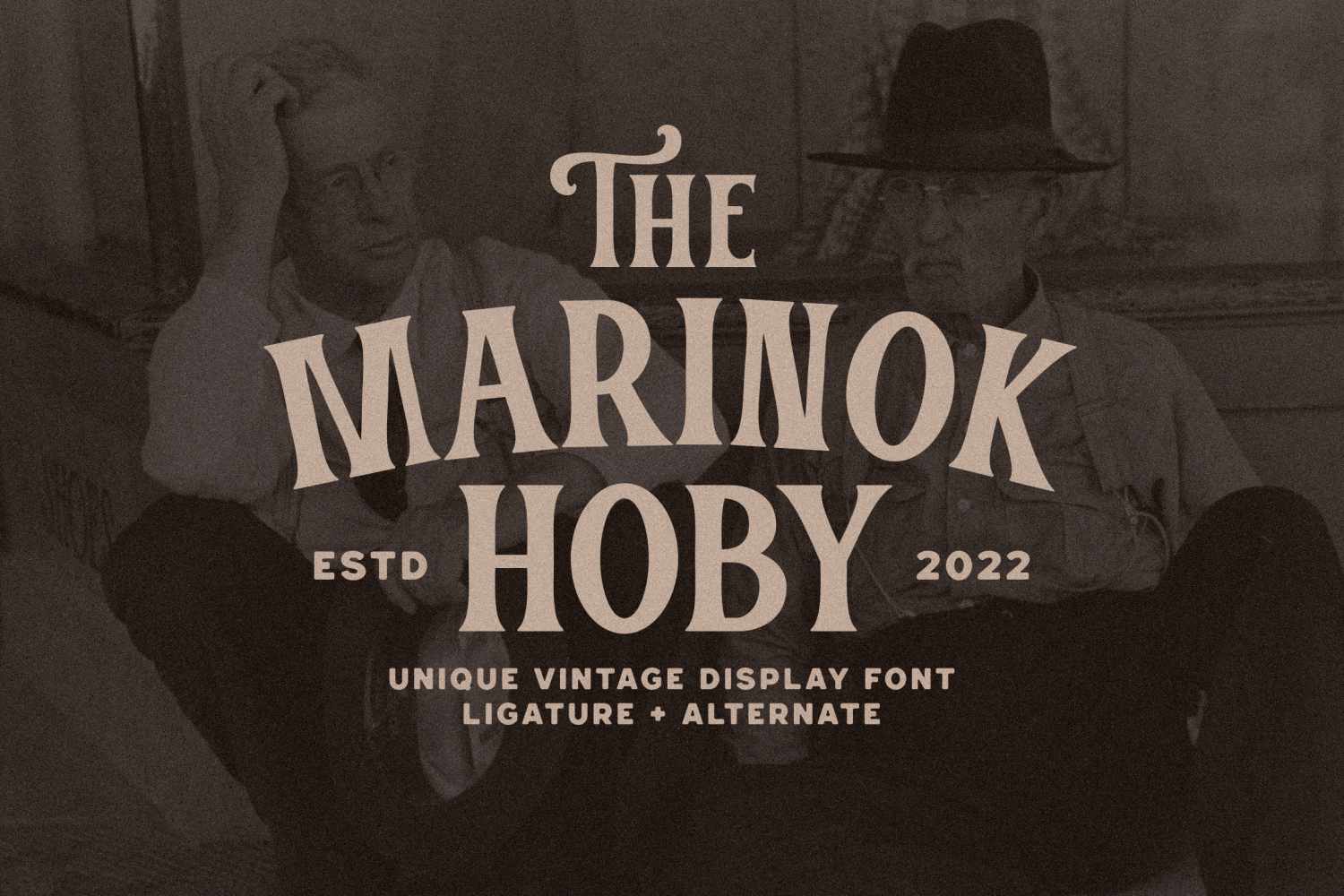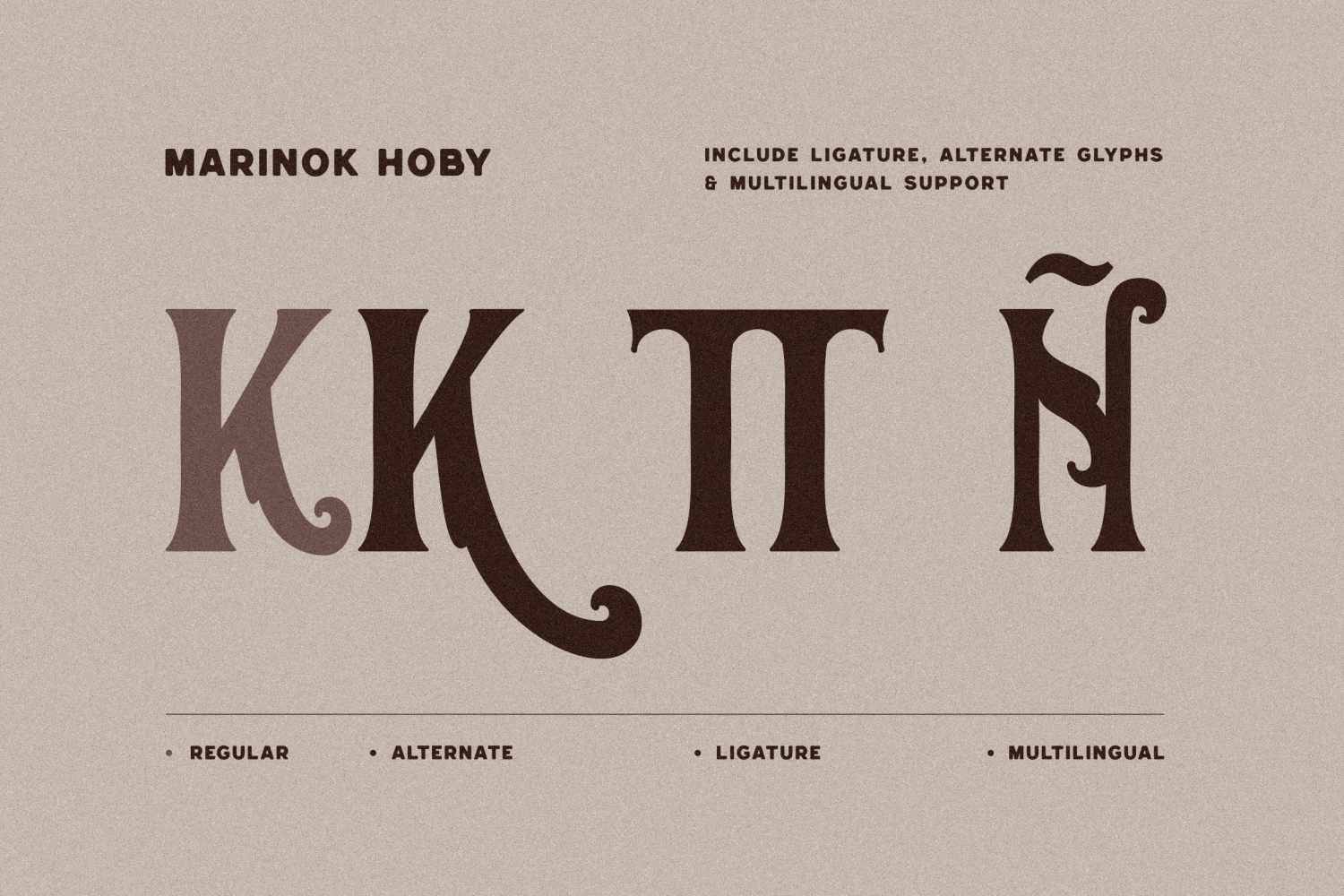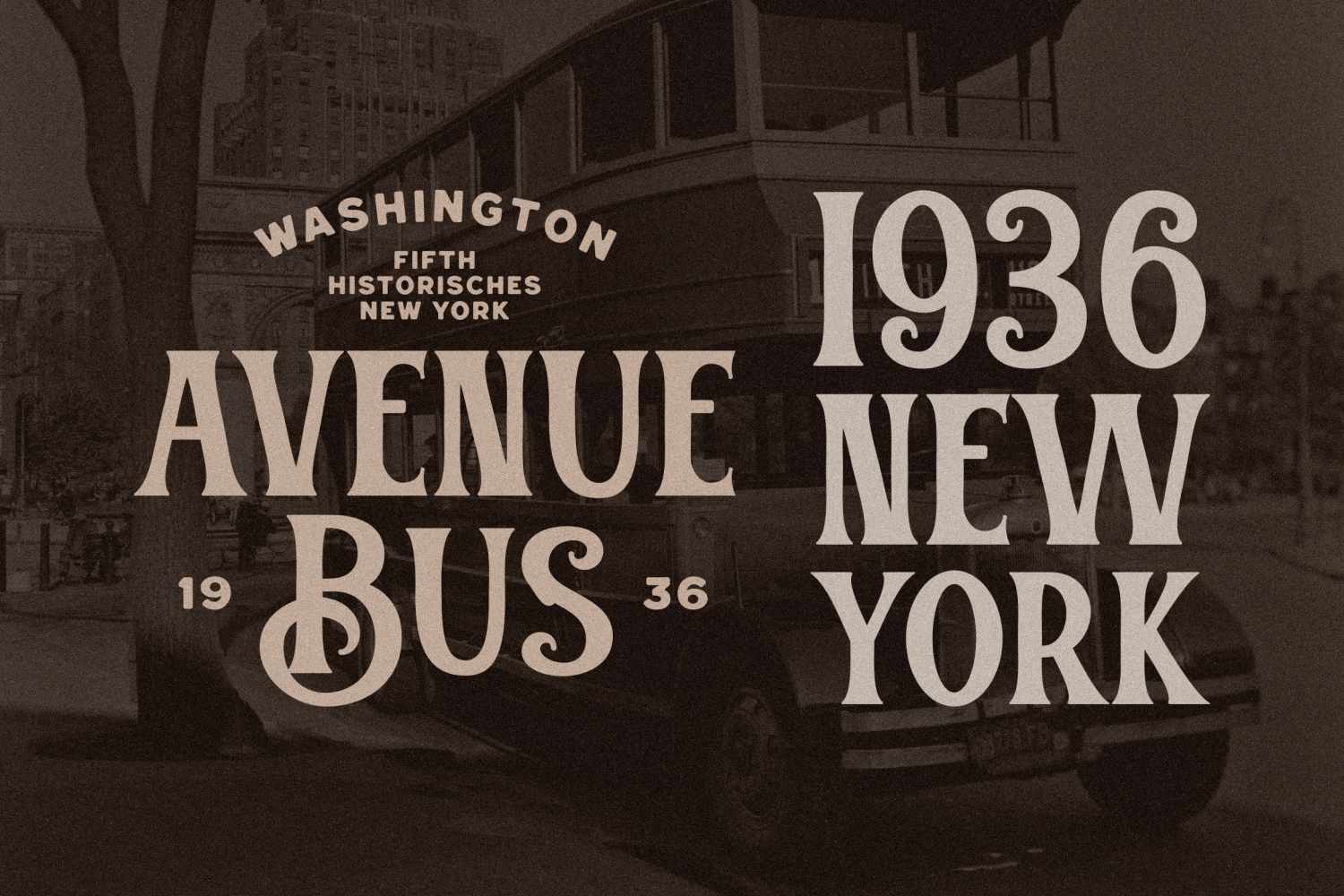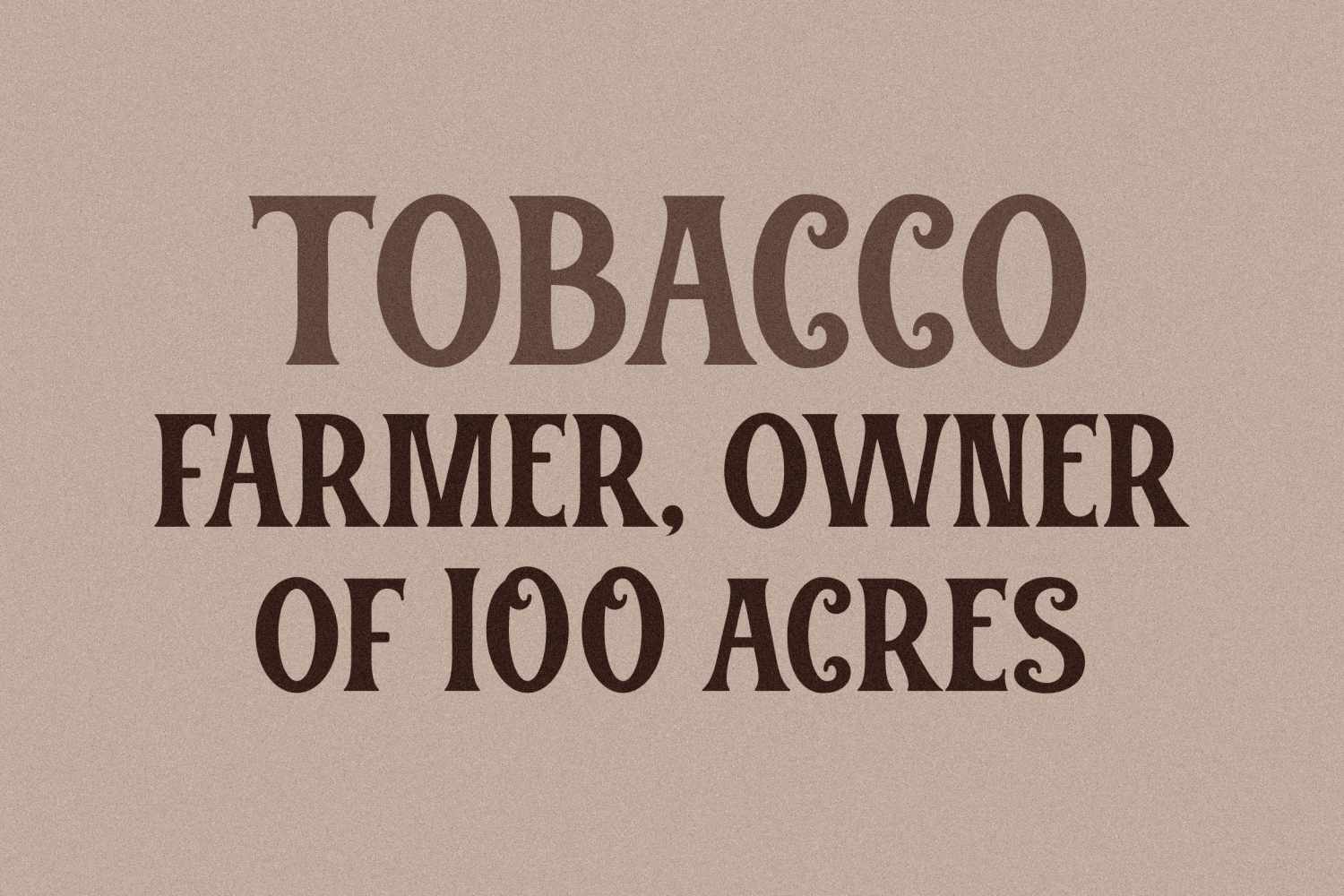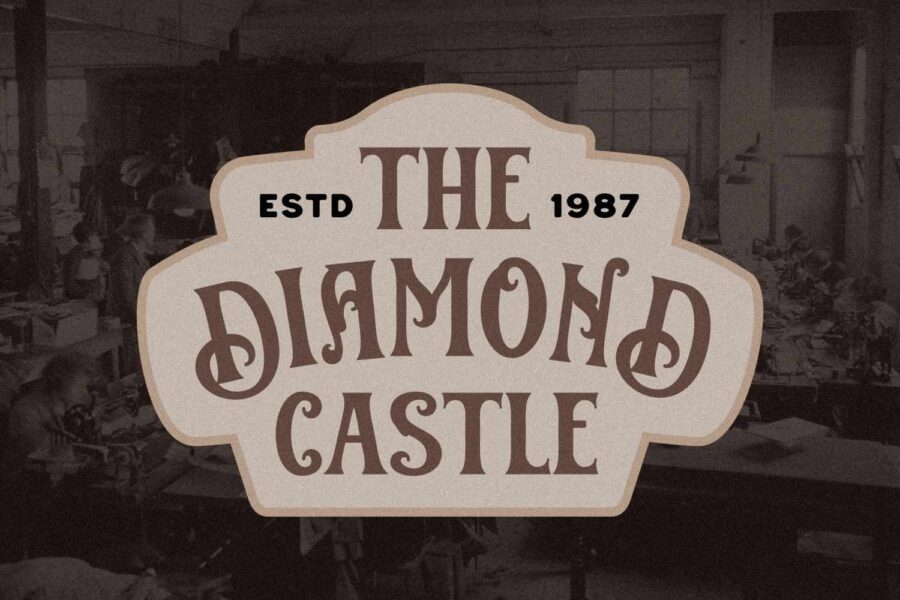
Marinok Hoby
Marinok Hoby is a unique vintage display font that blends bold retro charm with elegant ornamental details. Featuring stylish alternates, graceful curves, and artistic ligatures, this font is perfect for creating logos, posters, packaging, and branding projects that need a nostalgic yet distinctive look. Inspired by old signage and classic typography, Marinok Hoby delivers authenticity with a creative twist.
With its complete set of alternates, multilingual support, and versatile characters, Marinok Hoby offers endless design possibilities. Whether you’re working on editorial layouts, craft product labels, or vintage-inspired advertising, this typeface ensures your work stands out with personality and timeless appeal. Marinok Hoby brings back the essence of retro typography in a modern way.